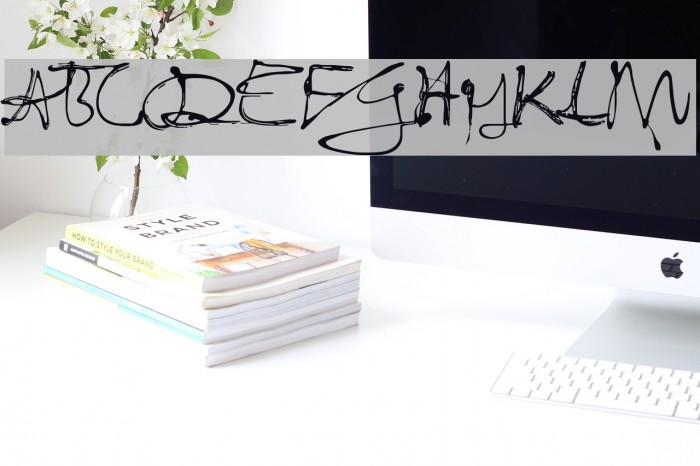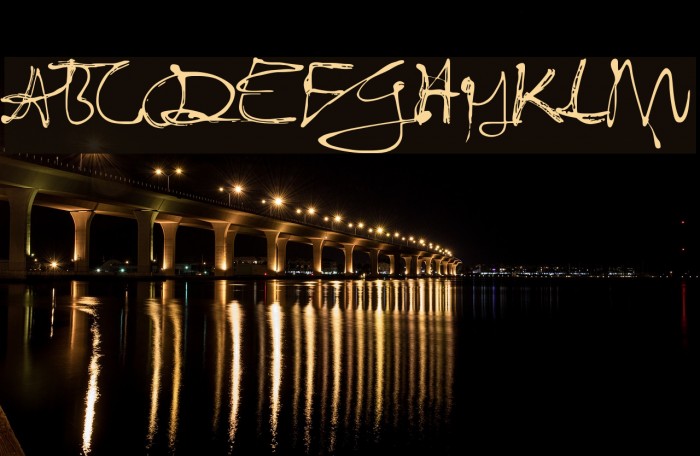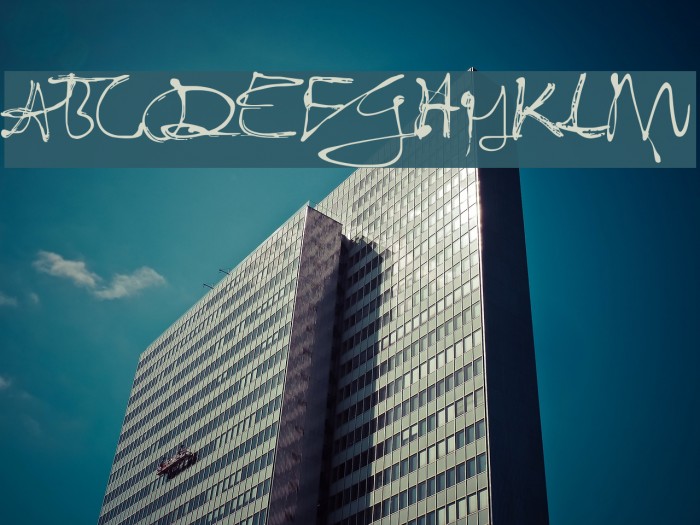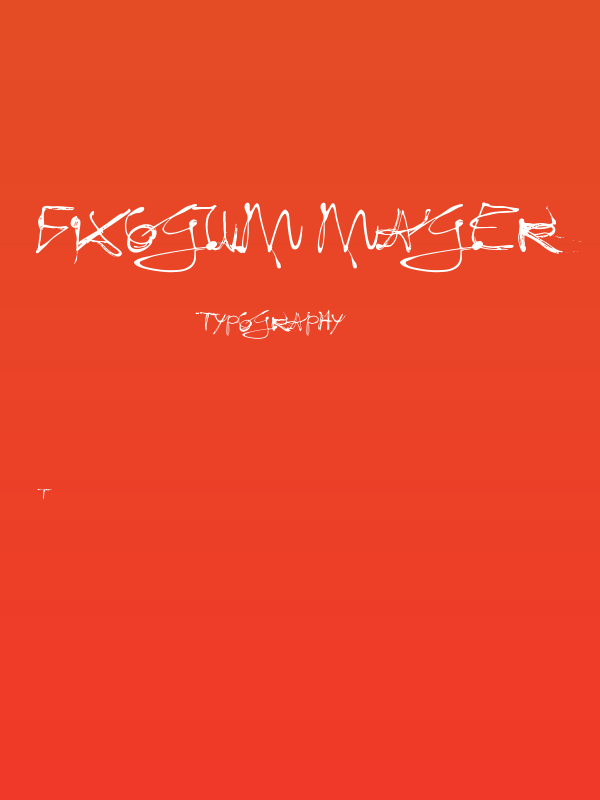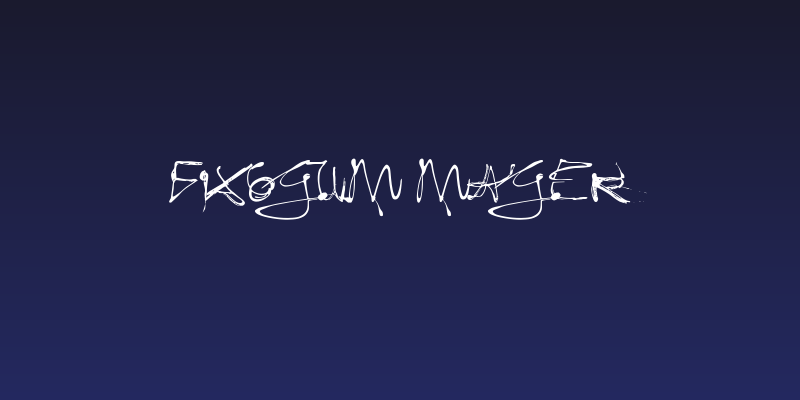
Fixogum-Mager Font
Fixogum-Mager Description
This font exhibits a highly expressive and artistic style, characterized by its irregular, hand-drawn appearance. The strokes are dynamic and fluid, with varying thickness that adds a sense of movement and energy. The letters are uniquely crafted, with some featuring exaggerated curves and loops, while others have sharp, angular elements. This creates a visually striking contrast within the typeface. The overall impression is one of creativity and spontaneity, making it suitable for projects that require a bold and unconventional aesthetic.
| Overall Style | Artistic, Creative |
| Use Case | Logos, Posters, Artistic projects |
| Proposed Projects | Ideal for artistic projects, album covers, posters, and creative branding that seeks to stand out with a unique, hand-crafted look. |